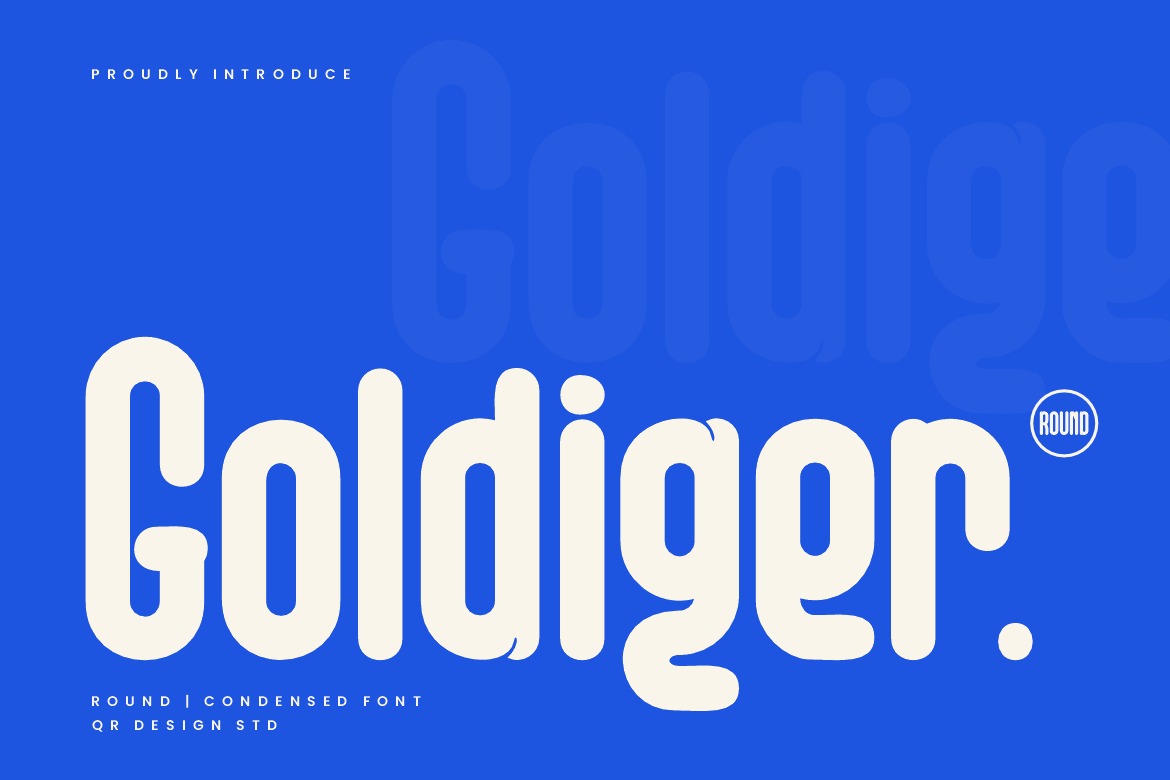
Goldiger - Round Sans Font
Goldiger Font is a bold and authentic display font. The font is suitable for any branding project like poster, logo, sport, and many more. Outstanding in a wide range of contexts.